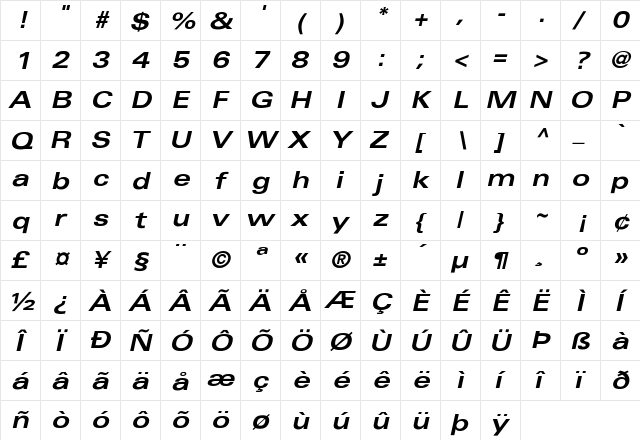
Fox Extended-Oblique Regular Regular
Design Context for Fox Extended-Oblique Regular Typeface
Fox Extended-Oblique Regular is a composed and adaptable typeface that performs quietly and consistently across a wide range of design contexts. The dynamic lean of this cut emphasises speed and emphasis in any layout.
Pro Tip: Use Fox Extended-Oblique Regular for emphasis, pull quotes, and subheadings where its slanted energy can add rhythm to the layout.